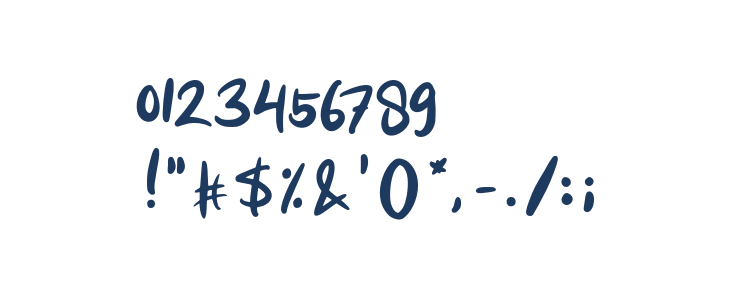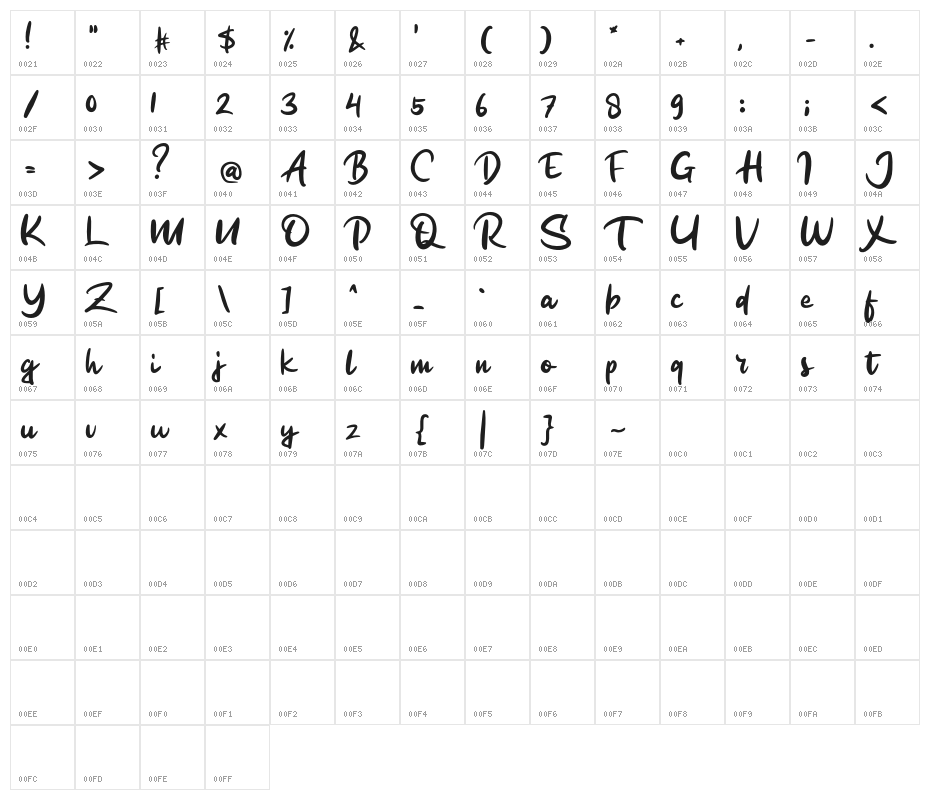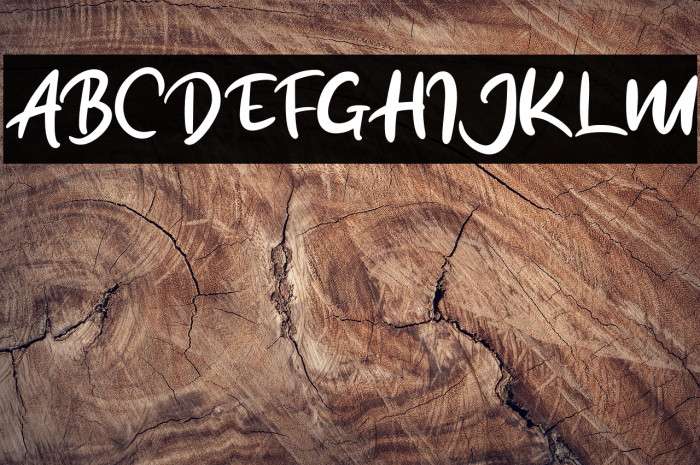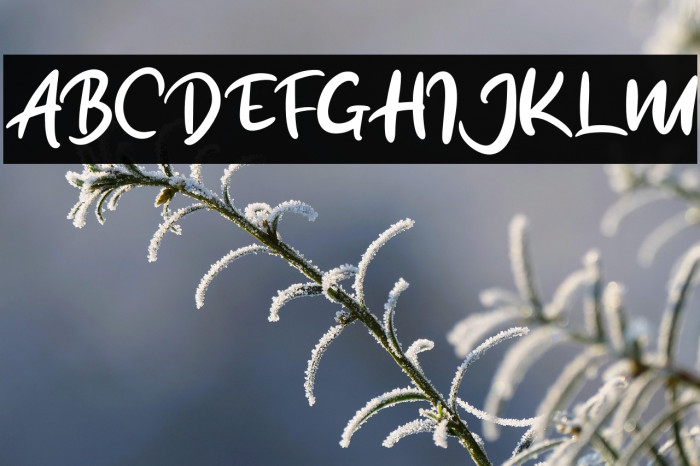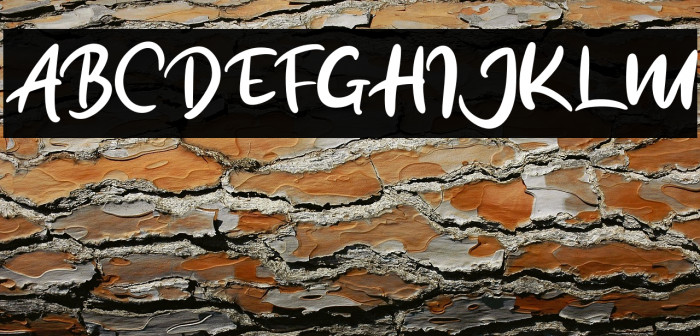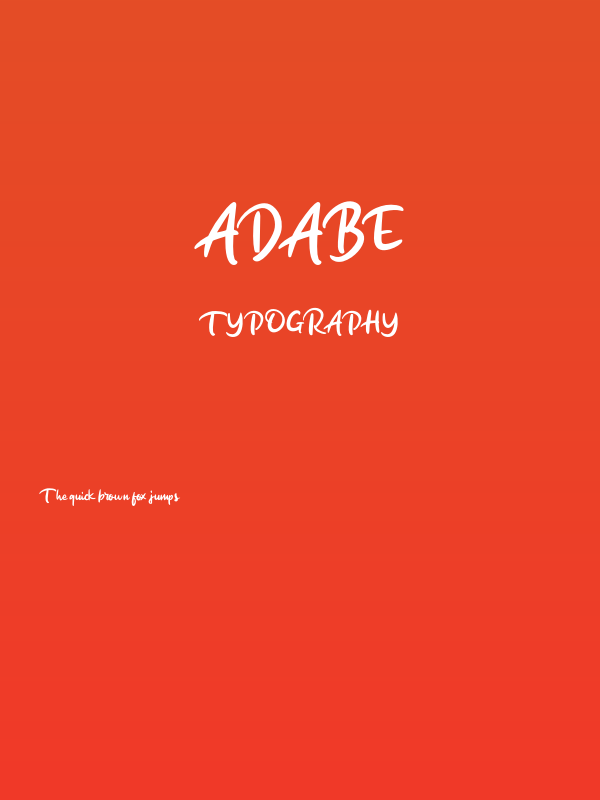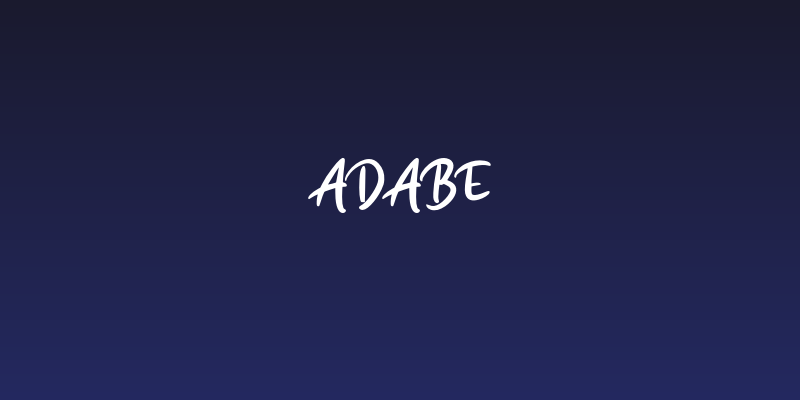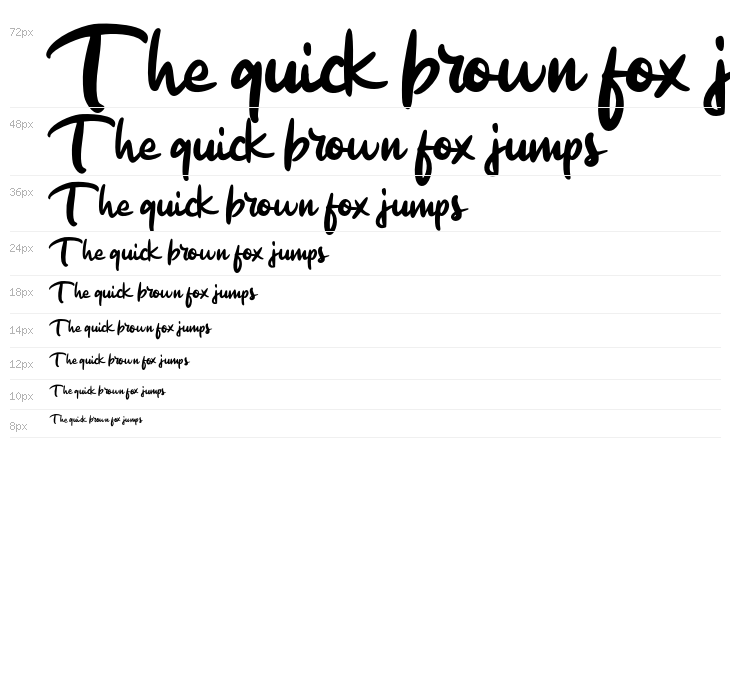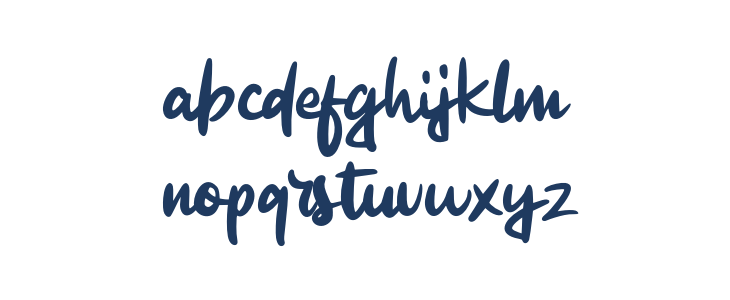
Adabe Font
Adabe Description
This font features a bold and expressive handwritten style, characterized by its fluid and dynamic strokes. The uppercase letters exhibit a consistent height with a slight slant, adding a sense of movement and energy. The lowercase letters maintain a harmonious flow, with some characters like 'g' and 'y' having distinctive loops and tails that enhance the font's playful nature. The numerals are well-integrated, matching the overall aesthetic with their rounded forms. Special characters are creatively designed, maintaining the font's cohesive look. This font is ideal for projects that require a personal touch, such as invitations, greeting cards, or branding materials.